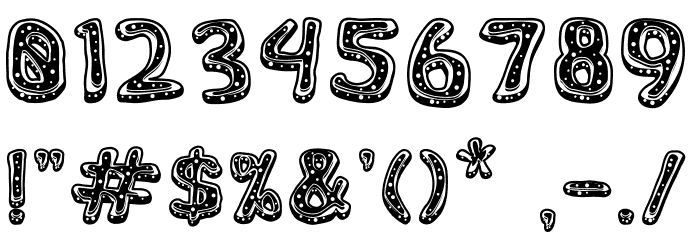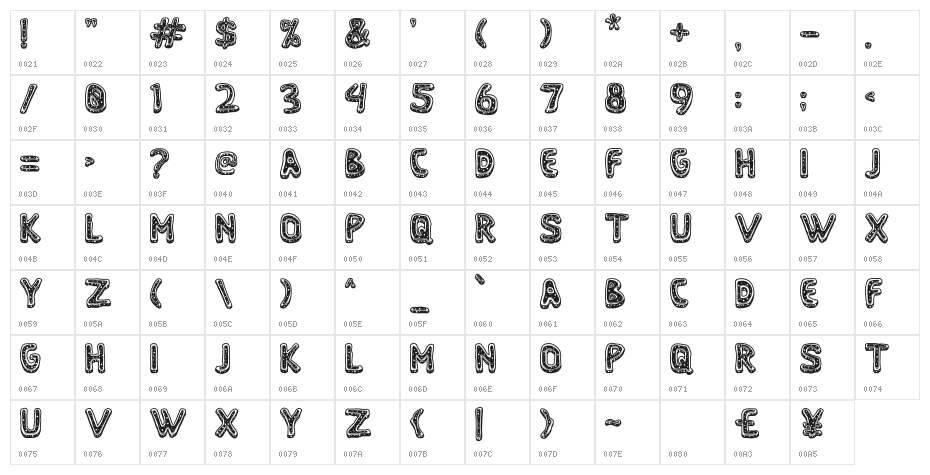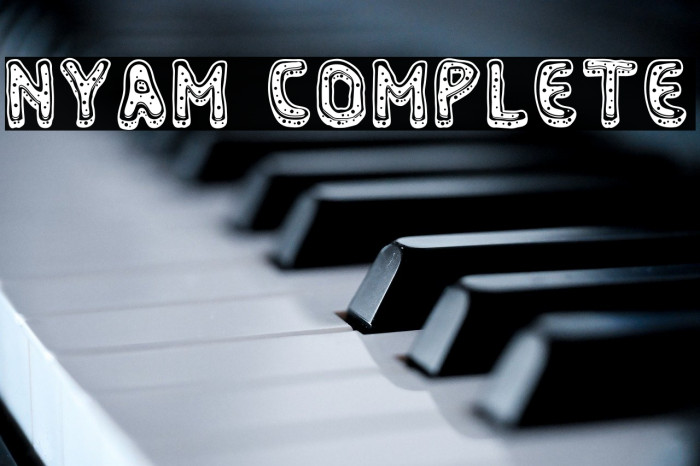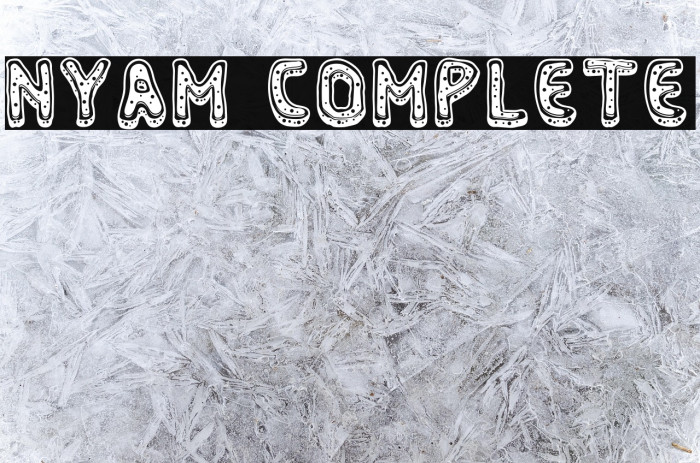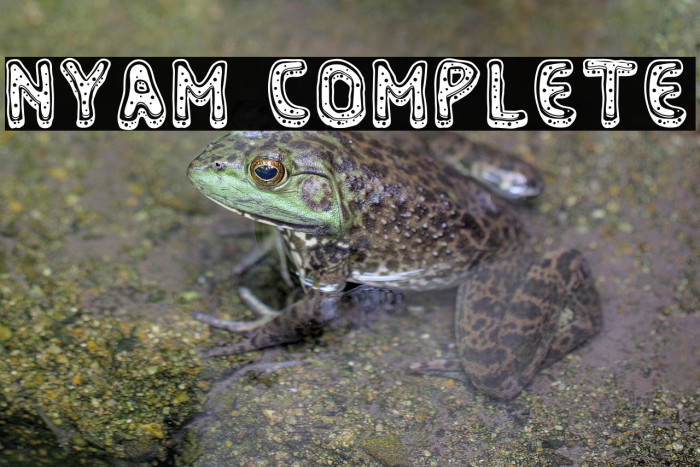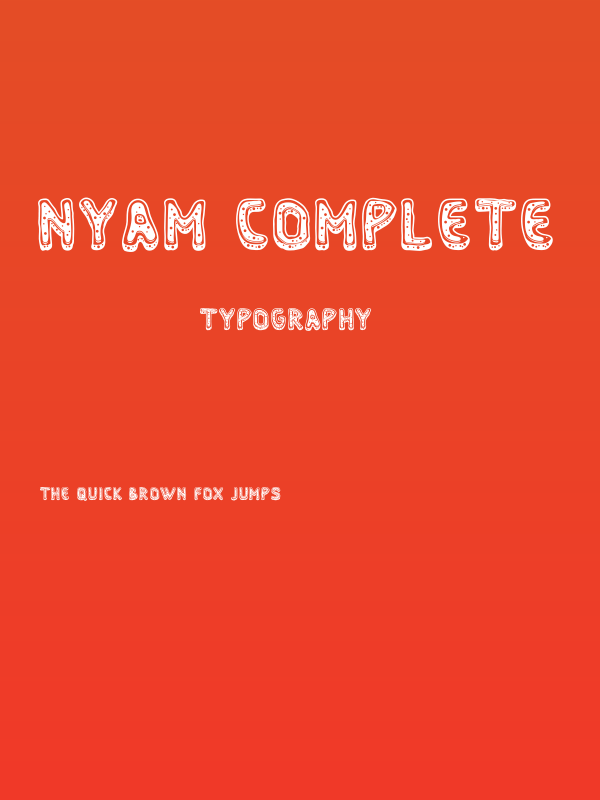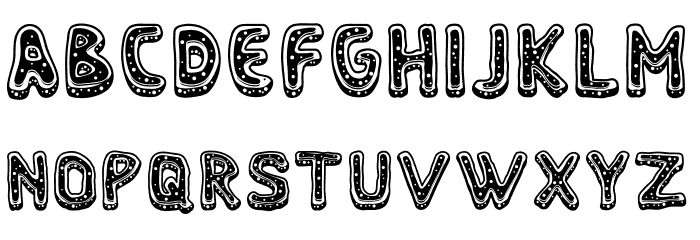
Nyam Complete Font
Nyam Complete Description
This playful and whimsical font features bold, rounded characters with a unique dotted pattern inside each letter. The design gives off a fun and lively vibe, making it perfect for creative projects. The uppercase and lowercase letters maintain a consistent style, with the numbers and special characters following suit. The font's distinct appearance is eye-catching and memorable, ideal for projects that require a touch of personality and flair.
| Proposed Projects | Ideal for children's books, party invitations, playful branding, and creative posters. |